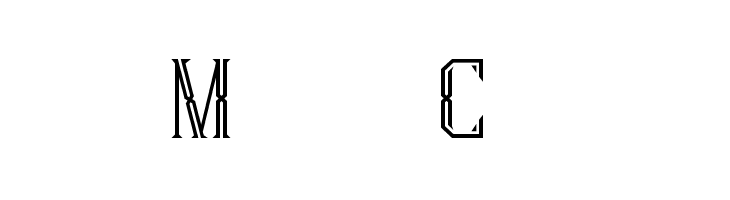
A bold serif typeface with high contrast and elegant serifs.
Ornamental, pictorial font with unique illustrative glyphs.
A bold, 3D italic font with a filled interior and prominent outline.
An italic outline font with sharp angles and smooth curves, offering a dynamic and elegant look.
A bold, italic font with a dynamic and modern style.
A bold, playful font with rounded, hand-drawn characters.
A bold, hand-drawn font with a textured, brush-like appearance.
A playful, hand-drawn font with a whimsical and cartoonish style.
A playful and whimsical font with bold, slightly condensed uppercase letters and rounded lowercase letters.
A decorative font with letters enclosed in scroll-like designs, offering a historical and elegant appearance.
设计师偏爱 Manky Serif Typeface, TrialNError, Failed 3d Filled Italic, Foucault Outline Italic and Mainland PERSONAL Black Italic,因为其造型干净、适用范围广—— 从品牌识别到落地页、海报都能胜任。